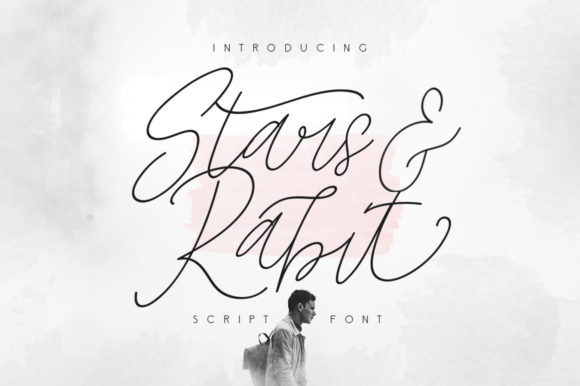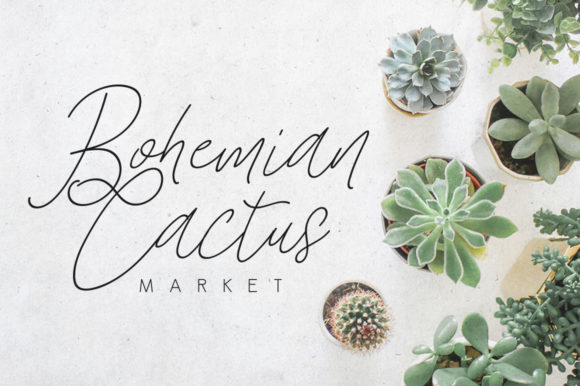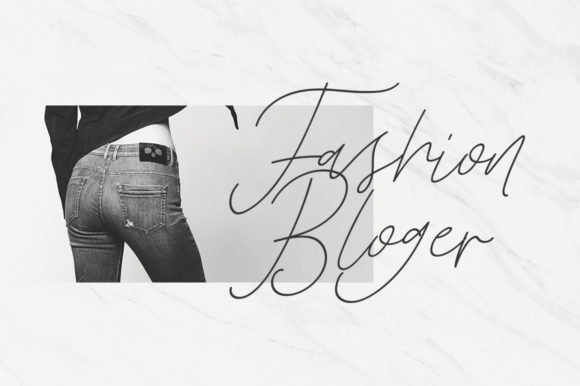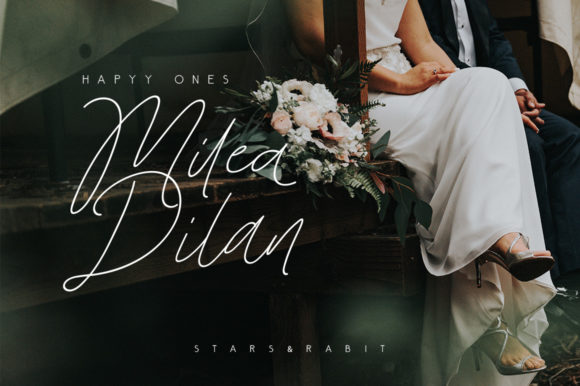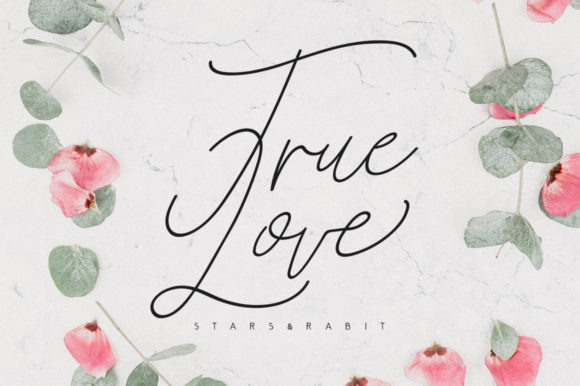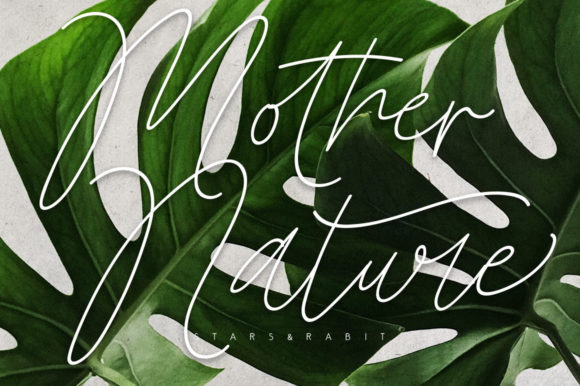
Stars and Rabbit Script Font
About Stars and Rabbit Script Font
Stars and Rabbit Script is a thin lettered and flowing script font. It looks stunning on wedding invitations, thank you cards, quotes, greeting cards, logos, business cards and every other design which needs a handwritten touch.